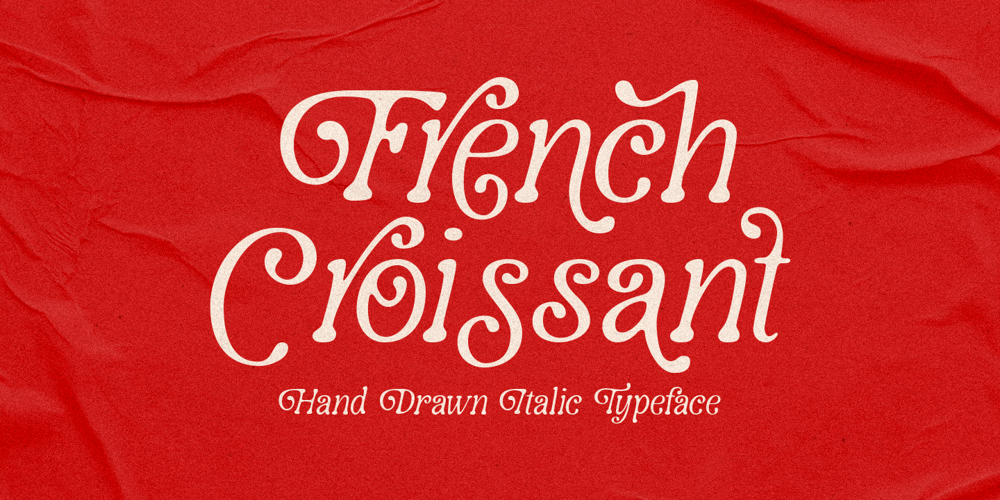
French Croissant Font Family was designed by Prio Nurokhim Aji and published by Prioritype. French Croissant contains 1 styles and family package options. French Croissant – Hand Drawn Display FontsPresenting a new, very passionate typeface. Yes, this font is hand-drawn with an italic style and is characteristic of various types of letter styles. Very suitable for branding designs, logos, posters, merchandise and more. Grab it to start your Type Game!Features: Uppercase, Lowercase, Numeral, Punctuation, Multilingual, Alternates & Ligatures.Multilingual contained: Afrikaans, Albanian, Asu, Basque, Bemba, Bena, Breton, Catalan, Chiga, Cornish, Danish, Dutch, English, Estonian, Filipino, Finnish, French, Friulian, Galician, German, Gusii, Indonesian, Irish, Italian, Kabuverdianu, Kalenjin, Kinyarwanda, Luo, Luxembourgish, Luyia, Machame, Makhuwa-Meetto, Makonde, Malagasy, Manx, Morisyen, North Ndebele, Norwegian Bokmål, Norwegian Nynorsk, Nyankole, Oromo, Portuguese, Quechua, Romansh, Rombo, Rundi, Rwa, Samburu, Sango, Sangu, Scottish Gaelic, Sena, Shambala, Shona, Soga, Somali, Spanish, Swahili, Swedish, Swiss German, Taita, Teso, Uzbek (Latin), Volapük, Vunjo, Zulu.For any questions please contact me 🙂Thanks!